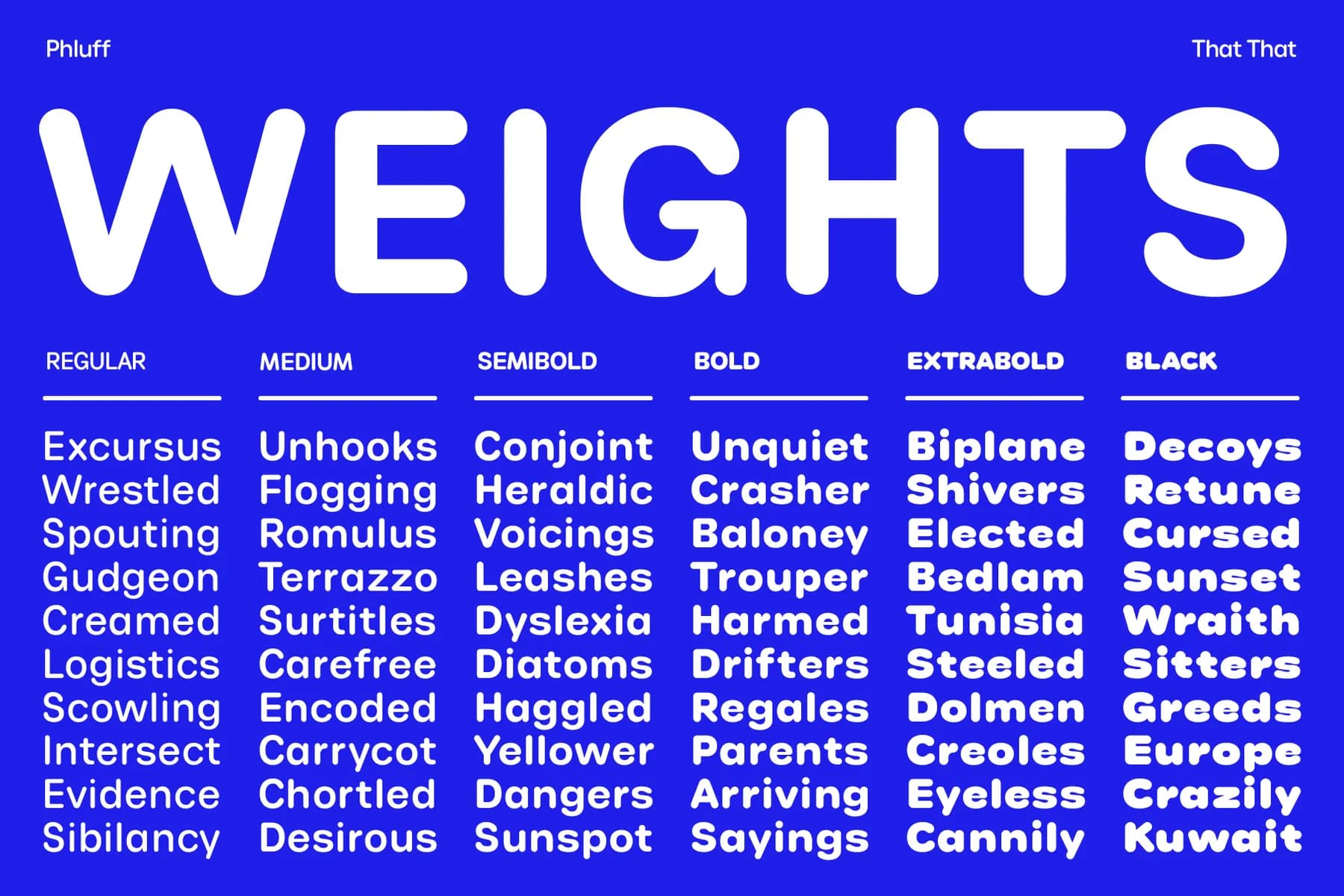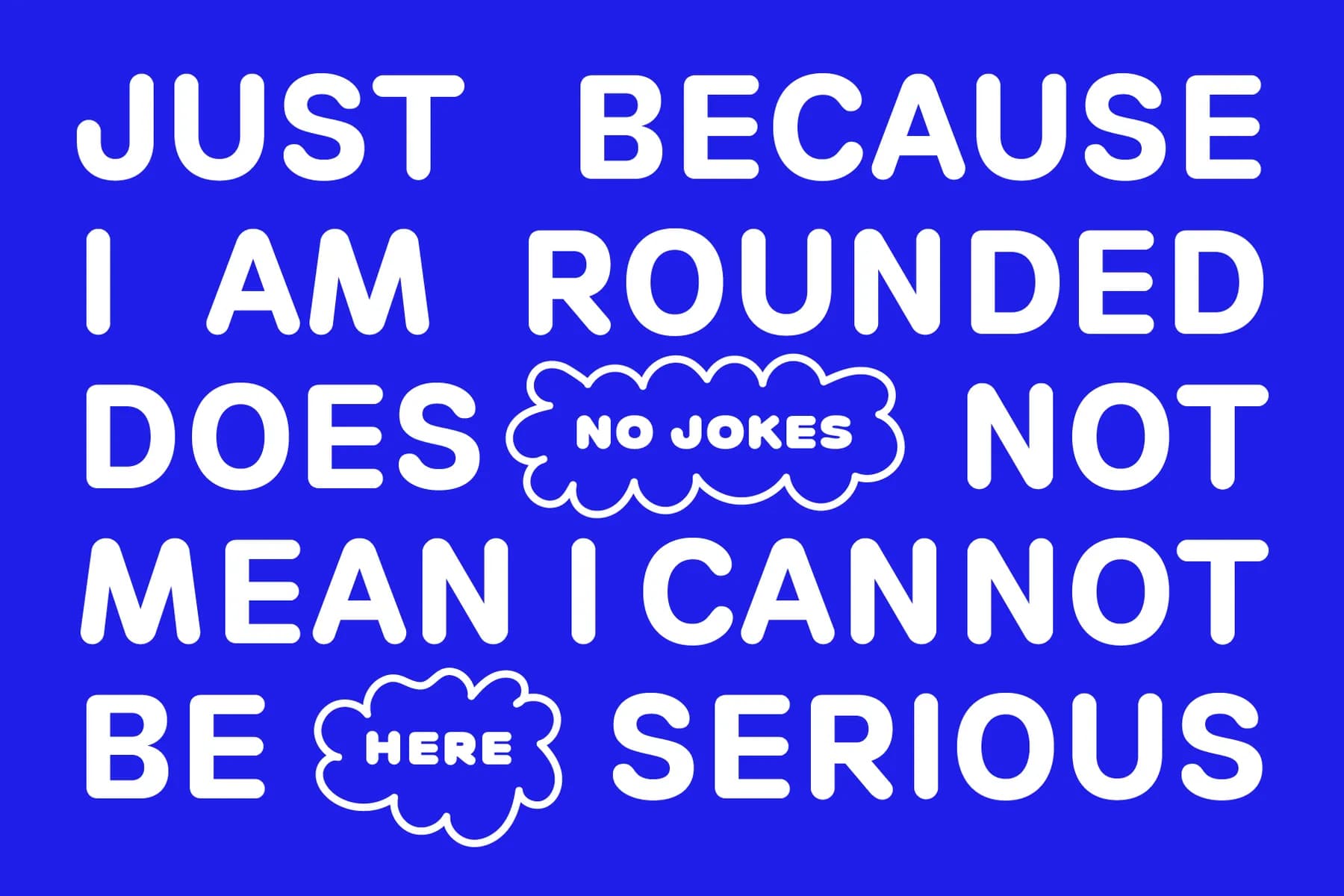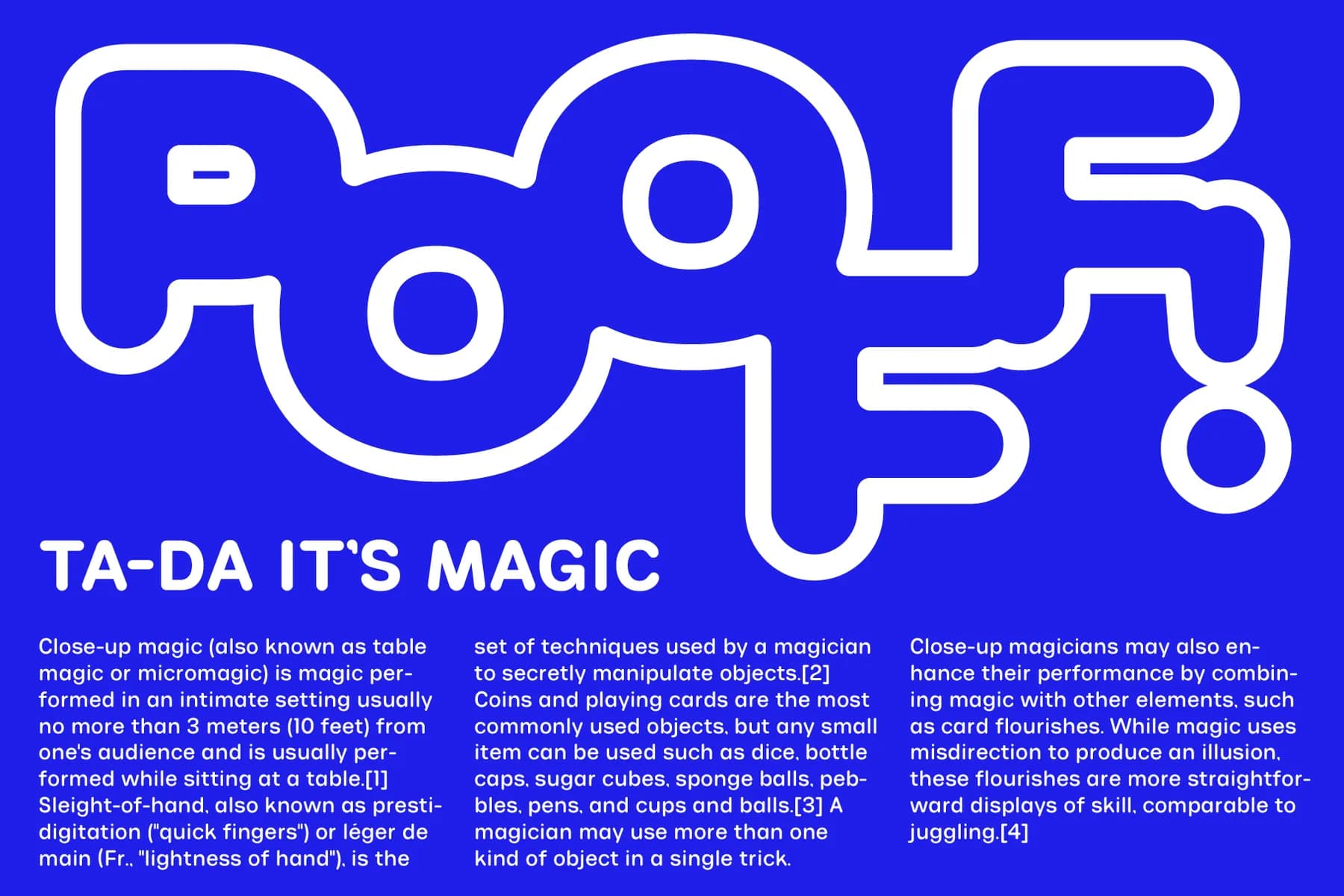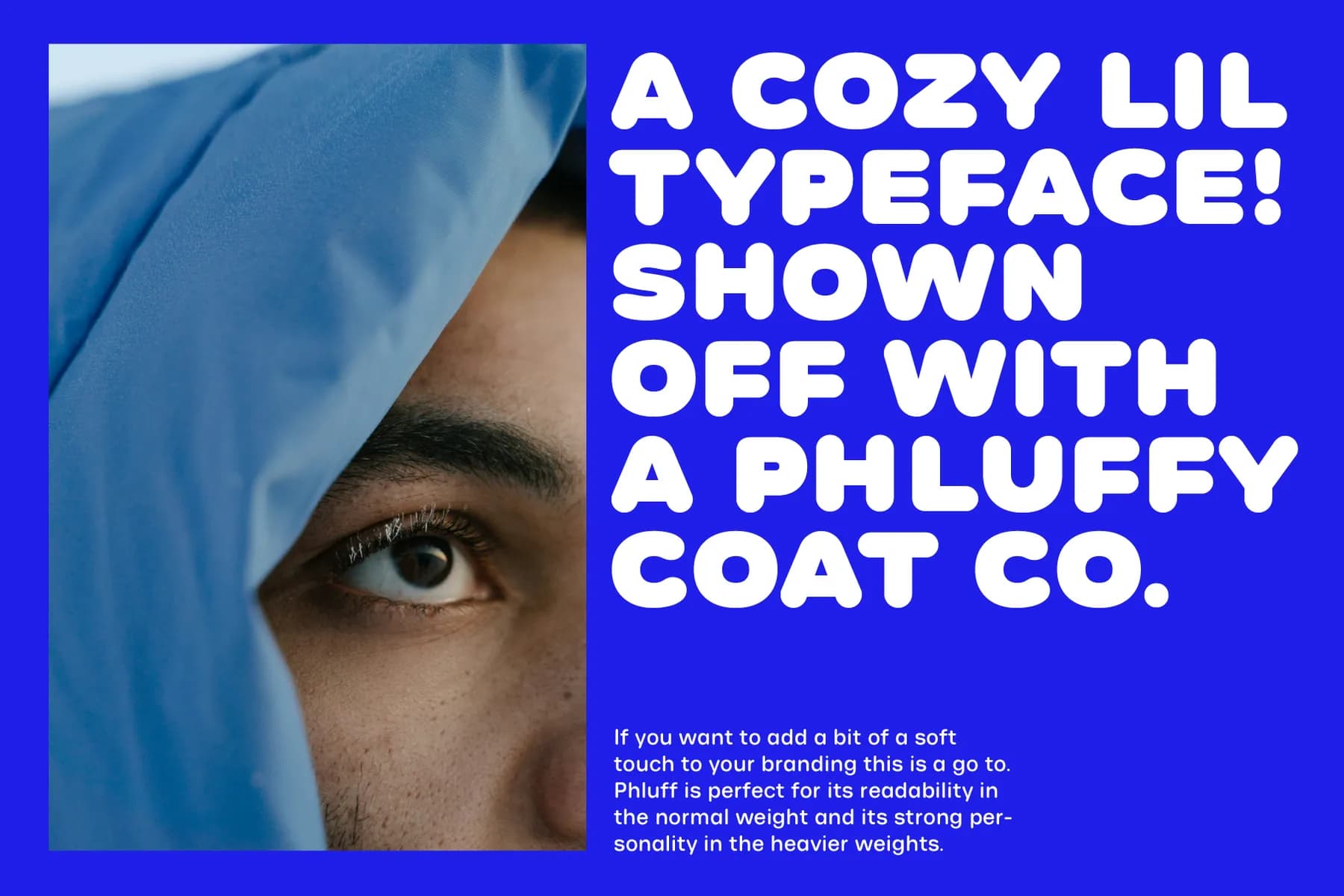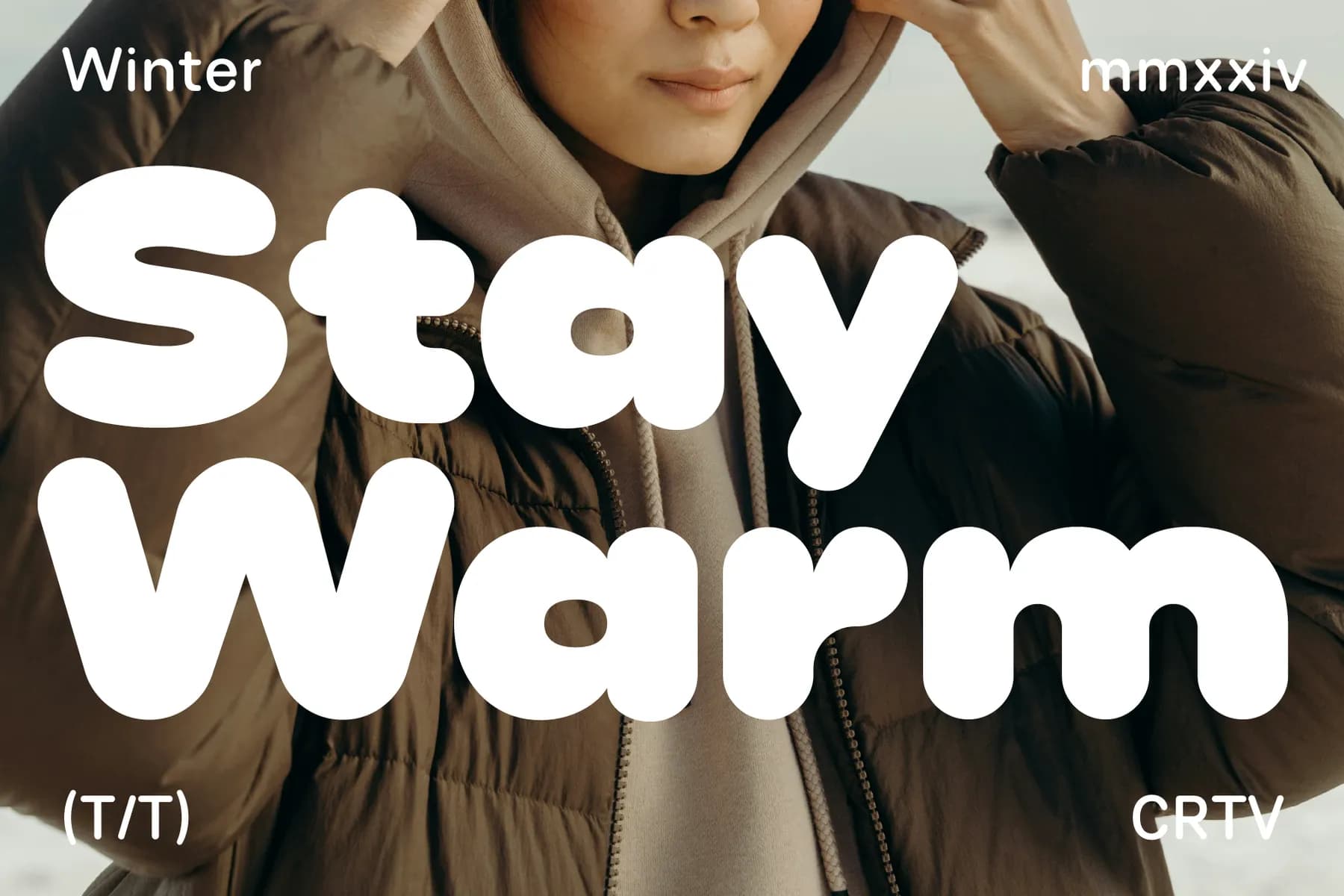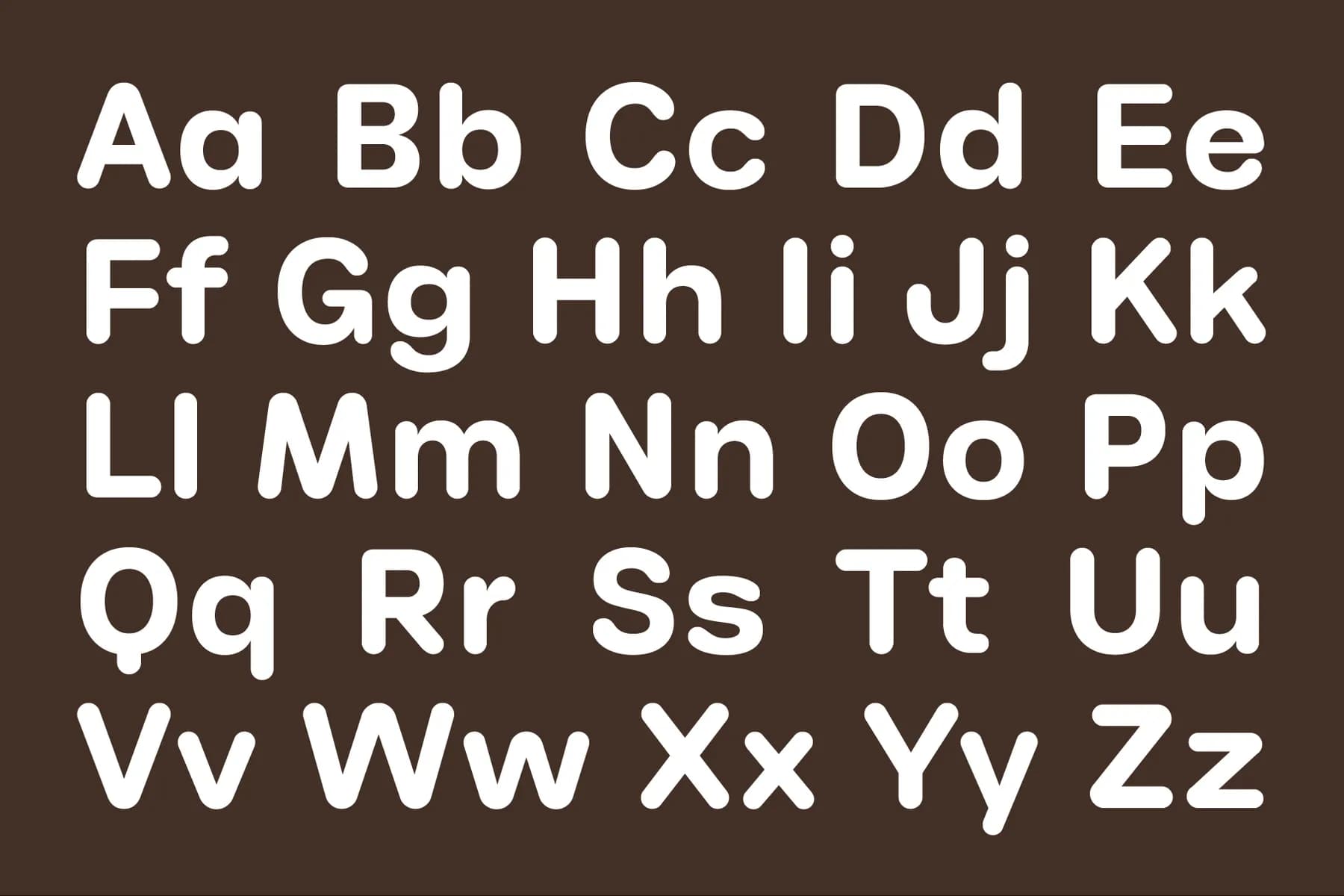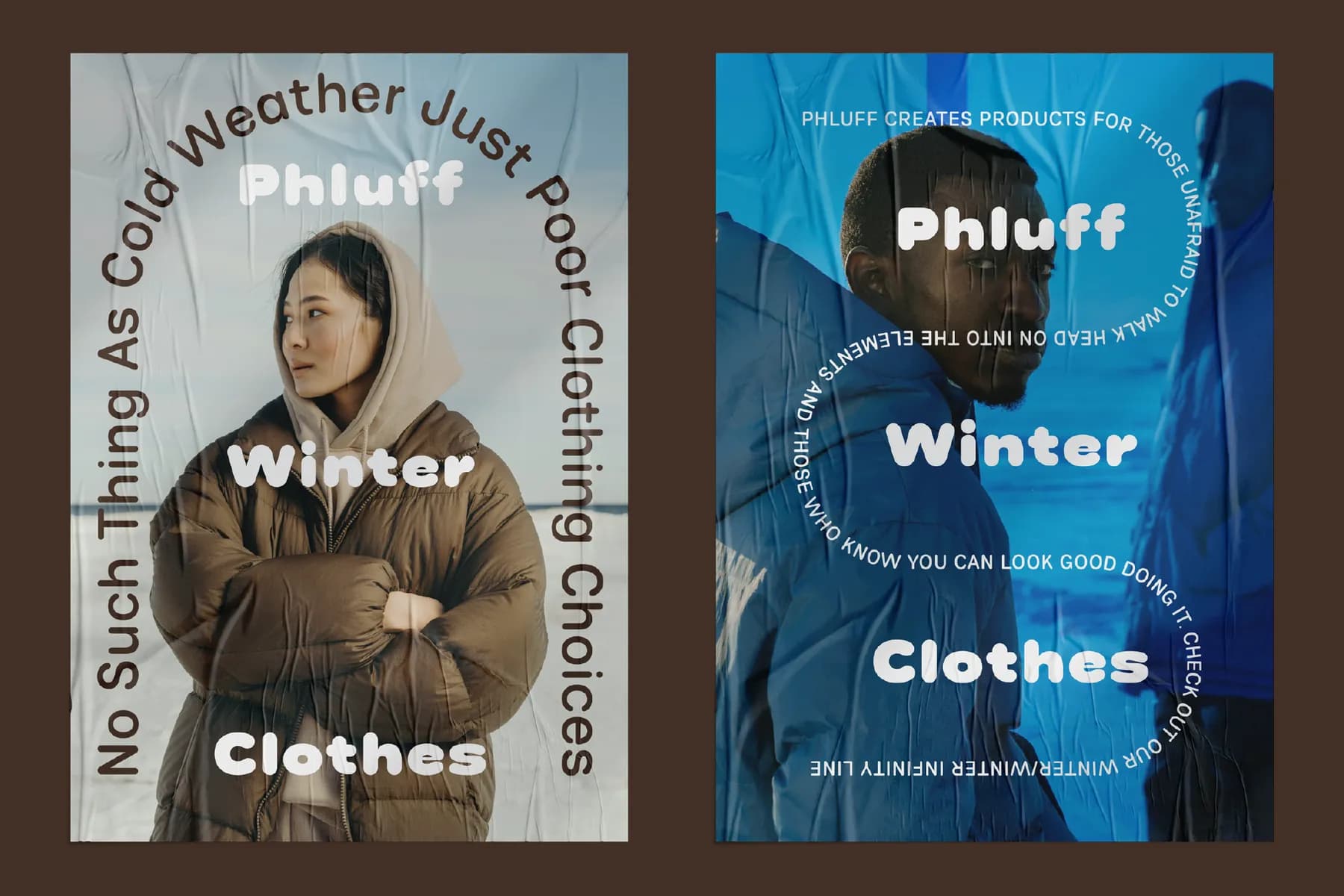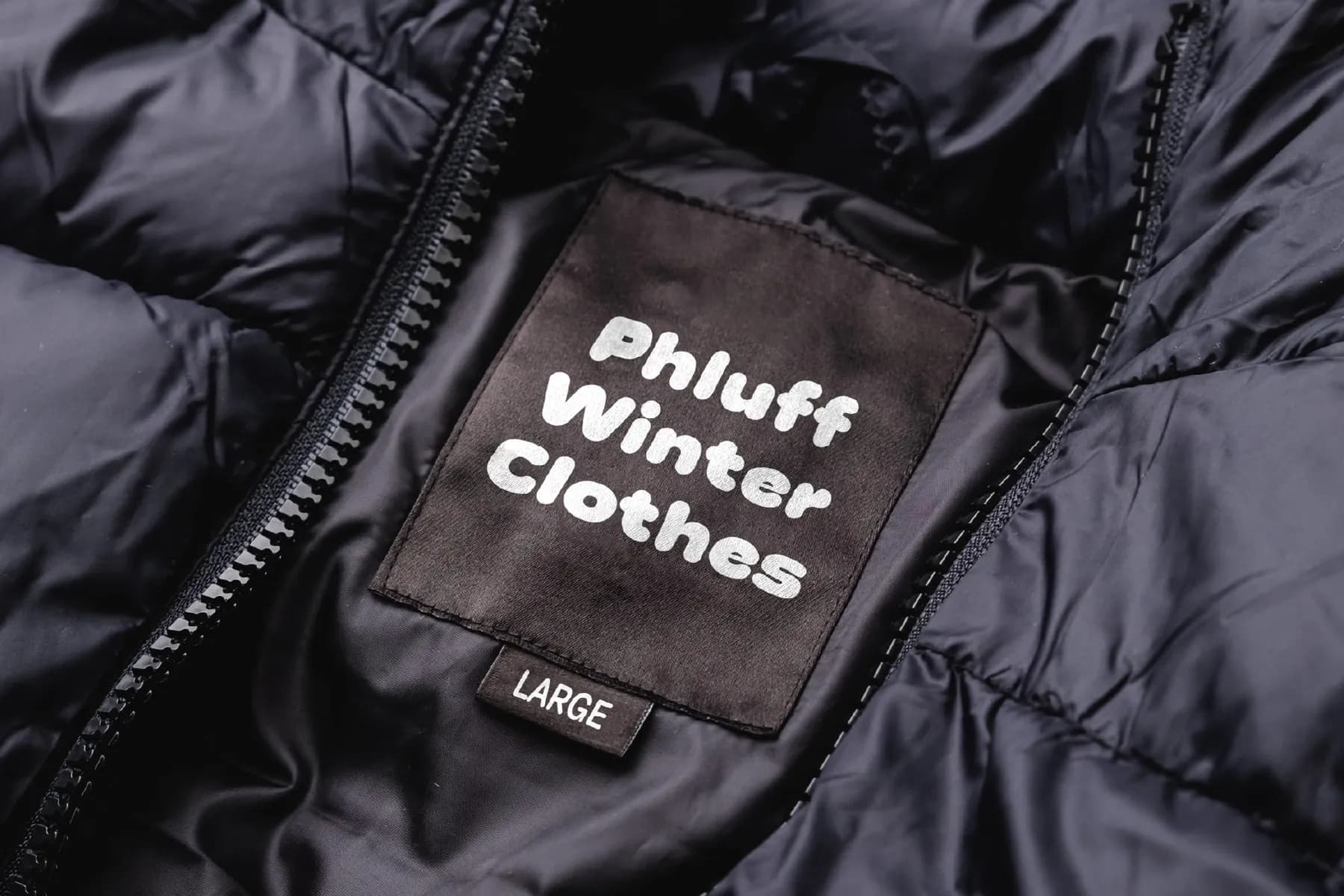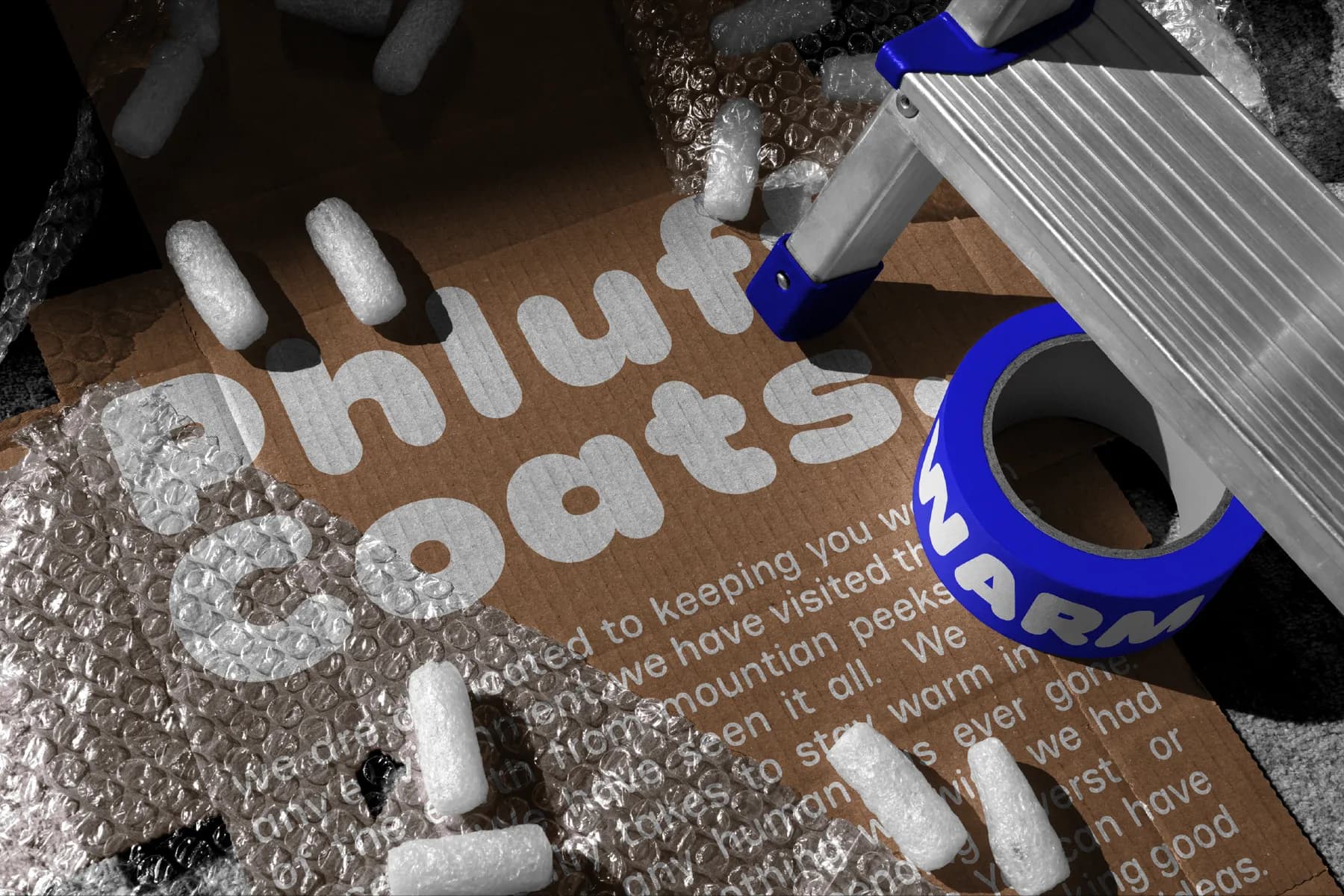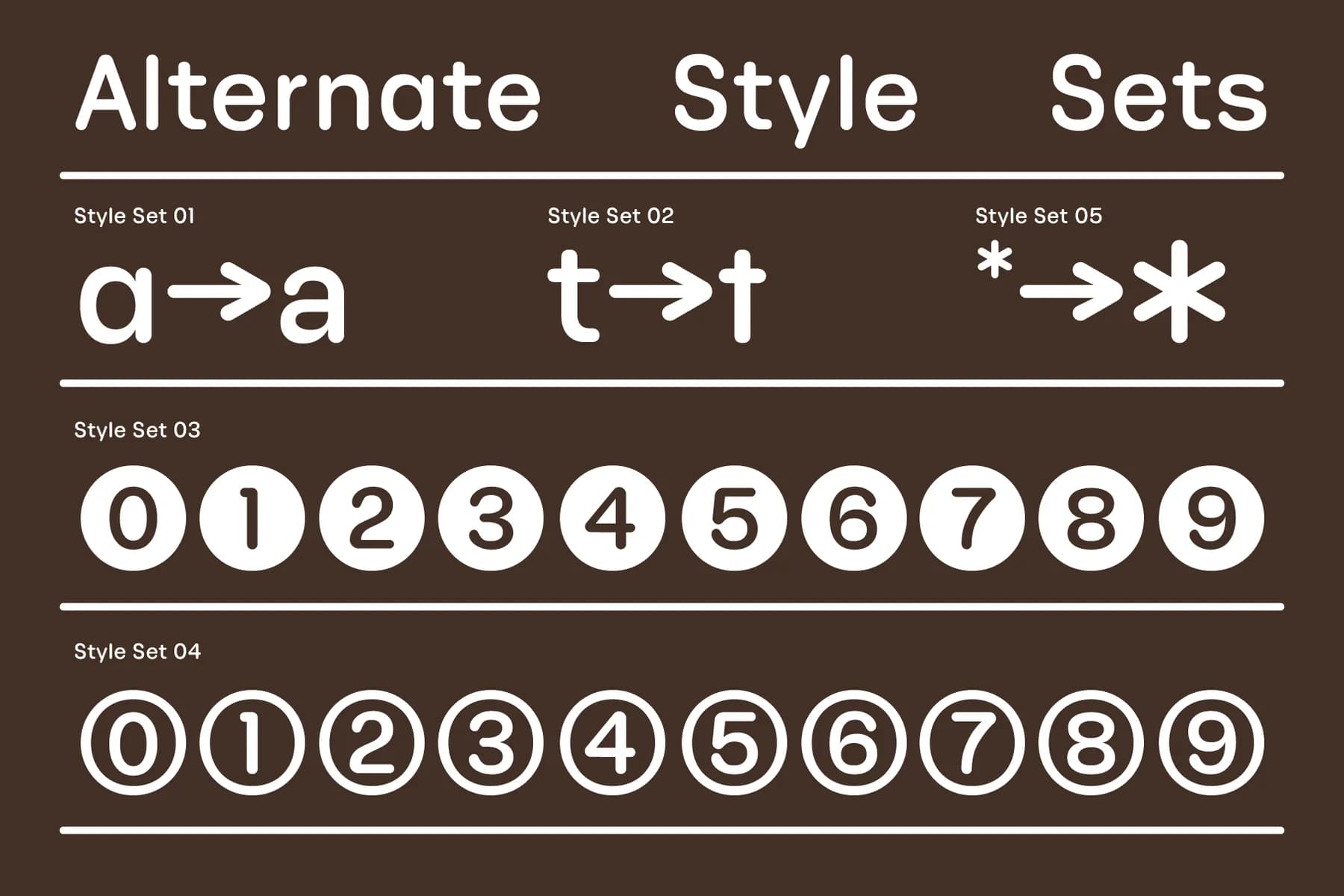
Phluff Round Variable Font Family
Phluff is a contemporary round sans serif Variable Font Family.
Phluff is a Round Sans Variable Font Family. It is perfect for adding a bit a soft playfulness to your Design without taking away any of the elevated design sense. This font is right at home on a high end fashion brand or an invitation for a toddlers birthday party. Weather its branding, logos, magazines, social media or posters, this font is perfect for a bit of elevated softness. The Weight of This font is variable so you a dial in exactly how bold you want your font.
• 6 Static Styles
• Variable Font
• 5 Style Sets
• Case Sensitive Punctuation
• Small Caps
• Ligatures
• Ordinals